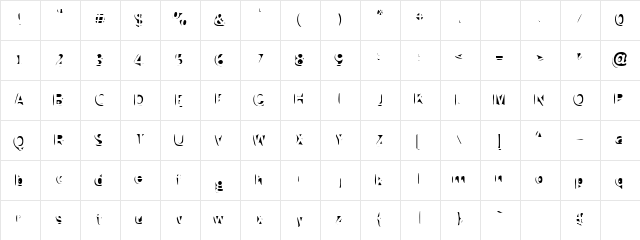
Slushfaux Union Regular
Design Context for Slushfaux Union Typeface
Slushfaux Union is a composed and adaptable typeface that performs quietly and consistently across a wide range of design contexts.